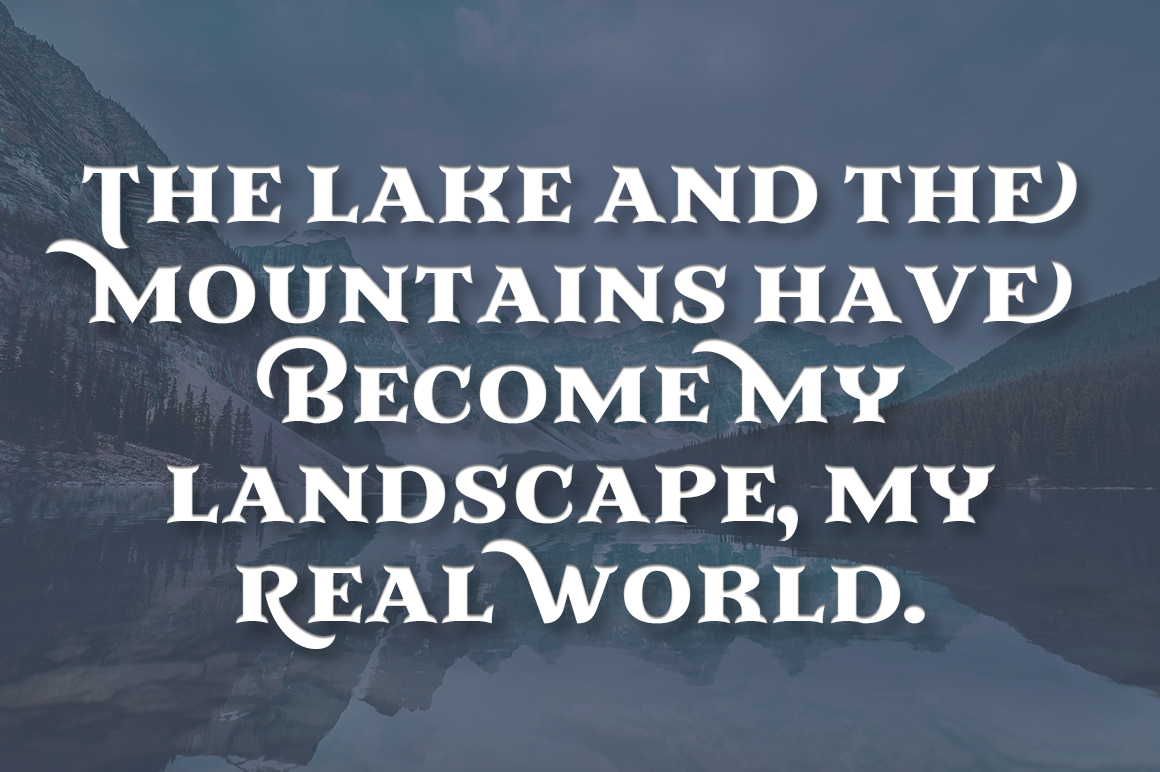
Introducing Antelope Island Font: A Timeless Classic for Your Designs
Are you looking for a font that exudes classicism and brevity? Look no further than Antelope Island Font. This beautifully crafted serif font is perfect for designers and crafters who want to add a touch of sophistication to their projects. In this article, we’ll dive into the world of Antelope Island Font, exploring its features, benefits, and uses.
A Brief Overview of Antelope Island Font
Antelope Island Font is a classic serif font that boasts a timeless elegance. Its subtle curves and refined lines make it an excellent choice for a wide range of design projects, from print materials to digital applications. The font’s classic design ensures that it will never go out of style, making it a valuable addition to any designer’s toolkit.
Key Features of Antelope Island Font
- Classic Serif Design: Antelope Island Font features a traditional serif design, complete with subtle curves and refined lines.
- Highly Versatile: This font is suitable for a wide range of projects, including print materials, digital applications, and more.
- Elegant and Refined: Antelope Island Font exudes classicism and brevity, making it perfect for designs that require a touch of sophistication.
- Easy to Read: The font’s clear and concise design ensures that it is easy to read, even at small sizes.
Benefits of Using Antelope Island Font
So why choose Antelope Island Font for your designs? Here are just a few benefits of using this amazing font:
- Adds Classicism to Your Designs: Antelope Island Font brings a touch of classicism to your designs, making them instantly more sophisticated.
- Perfect for Print Materials: The font looks great in print, making it ideal for use in brochures, posters, and other printed materials.
- Versatile: Antelope Island Font can be used in a wide range of projects, from digital applications to packaging and more.
- Easy to Pair with Other Fonts: The font’s classic design makes it easy to pair with other fonts, allowing you to create unique and interesting typography.
Using Antelope Island Font in Your Designs
So how can you use Antelope Island Font in your designs? Here are a few ideas to get you started:
- Print Materials: Use Antelope Island Font in brochures, posters, and other printed materials to add a touch of classicism.
- Digital Applications: The font is perfect for use in digital applications, such as e-books, websites, and more.
- Packaging: Antelope Island Font looks great on packaging, making it ideal for use on product labels and more.
- Signage: The font’s clear and concise design makes it perfect for use in signage, such as billboards and directional signs.
Tips for Getting the Most Out of Antelope Island Font
Here are a few tips for getting the most out of Antelope Island Font:
- Experiment with Different Sizes: Try using Antelope Island Font in different sizes to see how it looks in various contexts.
- Pair with Other Fonts: Don’t be afraid to pair Antelope Island Font with other fonts to create unique and interesting typography.
- Use in Combination with Images: The font looks great in combination with images, making it perfect for use in designs that feature photography or illustrations.
In conclusion, Antelope Island Font is a beautifully classic serif font that is perfect for designers and crafters who want to add a touch of classicism to their projects. With its highly versatile design, elegant lines, and clear readability, this font is sure to become a valuable addition to your toolkit. Whether you’re working on print materials, digital applications, or more, Antelope Island Font is a great choice.